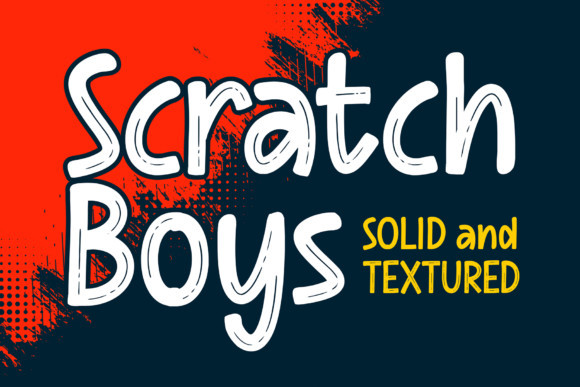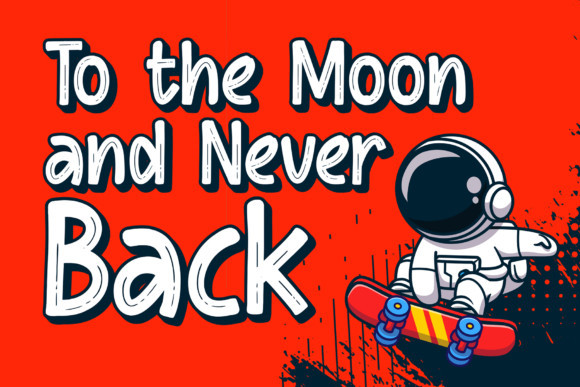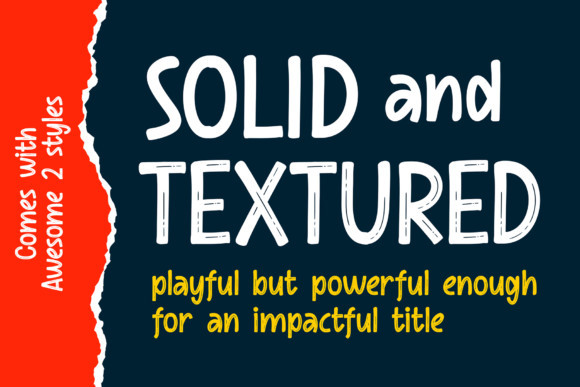
Scratch Boys Font
Scratch Boys is a fun display font. It embodies playfulness and authenticity and is the perfect choice for any children activity or school project. Add this chunky lettered font to your designs and notice how it makes them come alive!